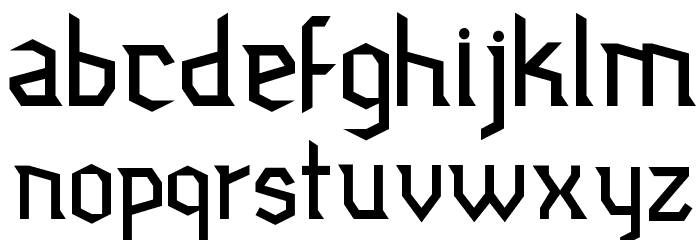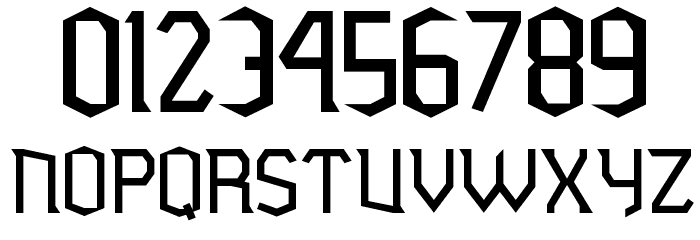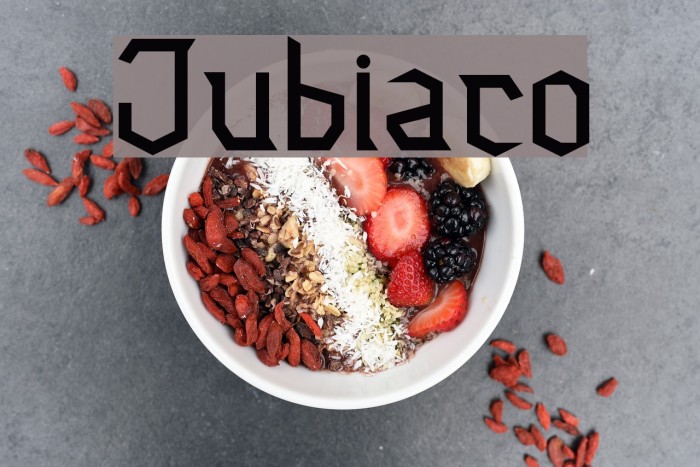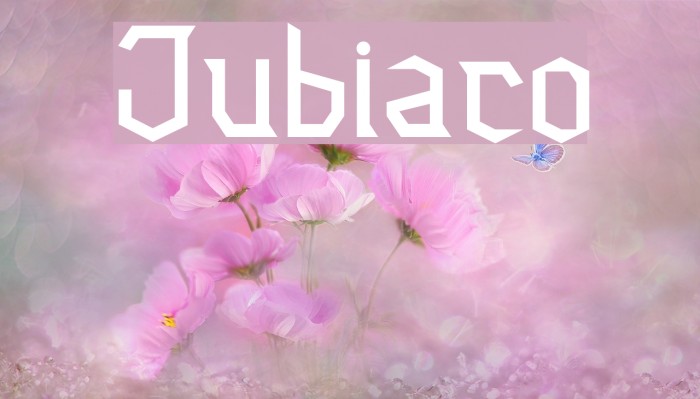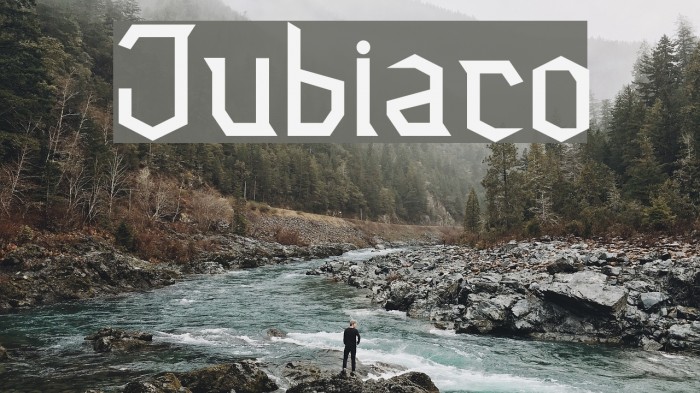
Jubiaco Font
This font features a bold, angular design with a geometric structure that gives it a modern and edgy appearance. The uppercase and lowercase letters maintain a consistent style, characterized by sharp angles and a blocky form. The numerals follow the same design principles, ensuring uniformity across all characters. The font's unique style makes it stand out, with a futuristic and somewhat industrial feel. It is well-suited for projects that require a strong visual impact, such as branding, posters, or digital media. The special characters are designed to match the overall aesthetic, ensuring cohesion in any text composition.
A bold, angular font with a modern, geometric design.
- Proposed Projects: Ideal for branding, posters, digital media, and projects requiring a strong visual impact.